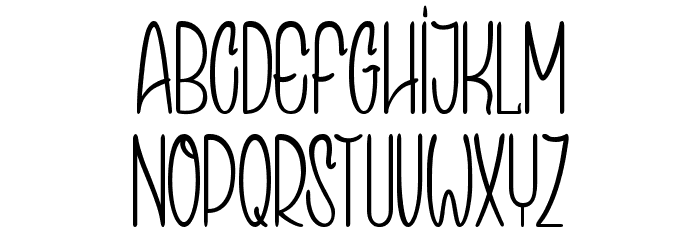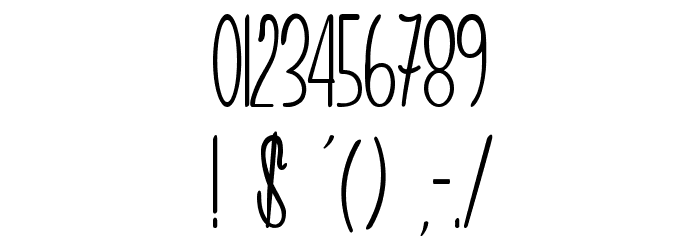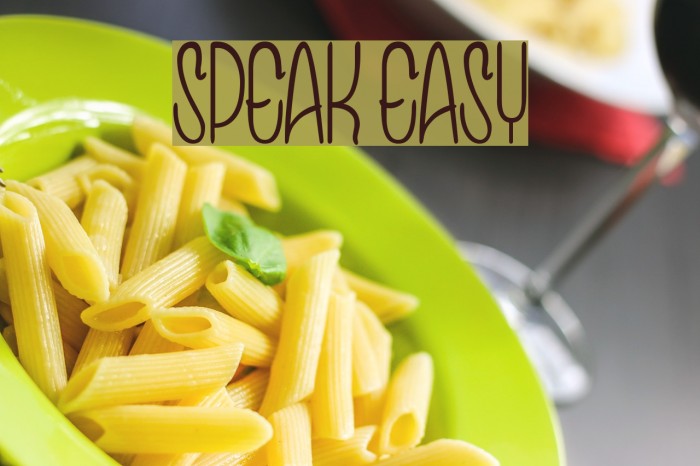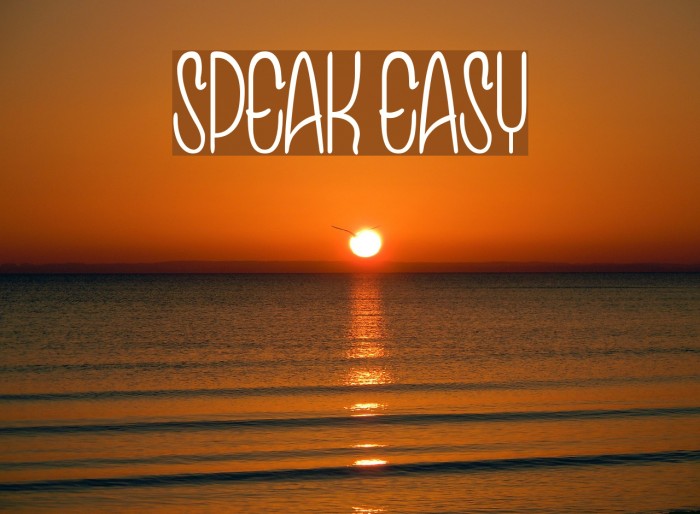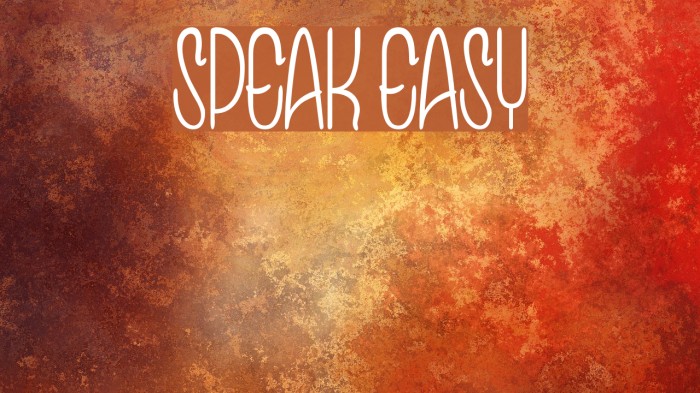
Speak Easy Font
This font features a playful and elongated design, characterized by its tall and narrow letterforms. The strokes are smooth and consistent, giving it a clean and modern appearance. The uppercase and lowercase letters maintain a uniform height, creating a cohesive look. The numbers and special characters follow the same style, ensuring versatility across different uses. Its unique style makes it stand out, while still being legible and functional.
A playful, elongated font with smooth, narrow letterforms.
- Proposed Projects: Ideal for creative projects such as posters, invitations, and branding materials that require a modern and playful touch.